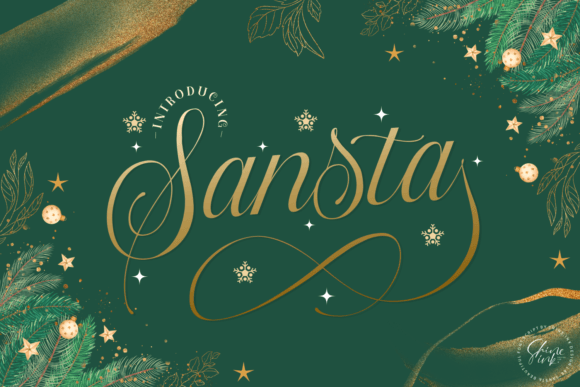
Behold, Sansta Font, the Enchanting Handwritten Script for a Merry Christmas
Sansta Font, the breathtaking creation of shineink.designlab, is not just a font; it's an invitation to a world of festive cheer and Christmas magic. This delightful handwritten script font exudes warmth and charm, making it the perfect choice for capturing the spirit of the jolliest time of the year.
Adorned with playful curves and elegant flourishes, Sansta Font dances across your screen like a melody of joy. Its unique characters evoke the wonder of a snowy morning, the coziness of a crackling fireplace, and the excitement of presents waiting under the tree.
Whether you're a seasoned designer or just starting, Sansta Font is your perfect companion for crafting enchanting Christmas designs that will mesmerize your audience.
Step into a World of Endless Creative Possibilities:
With Sansta Font, your designs will shine brighter than a star atop a Christmas tree:
- Greeting Cards: Create heartfelt Christmas cards that convey your warmest wishes in a way that's truly special.
- Social Media Posts: Make your holiday greetings on social media stand out with Sansta Font's eye-catching charm.
- Invitations: Design invitations for Christmas parties and events that exude an air of festivity and excitement.
- Posters and Flyers: Capture attention with posters and flyers that announce Christmas sales, events, and promotions in a captivating manner.
- Logos and Branding: Infuse your Christmas-themed logos and branding with a touch of whimsy and delight.
- Merchandise: Create unique Christmas merchandise like mugs, t-shirts, and ornaments that spread joy wherever they go.
Sansta Font is your key to unlocking a treasure trove of creative possibilities. Its versatility and charm make it an indispensable tool for designers seeking to create truly captivating Christmas designs.